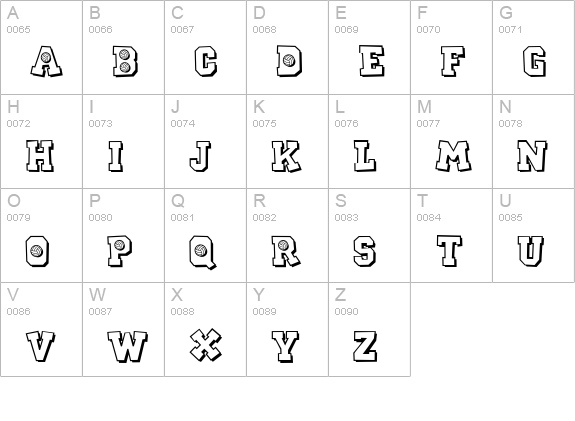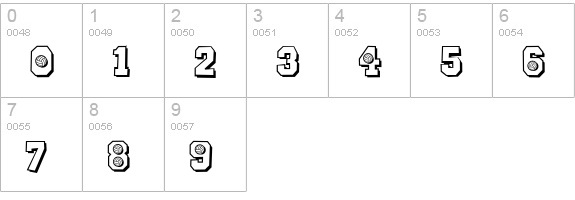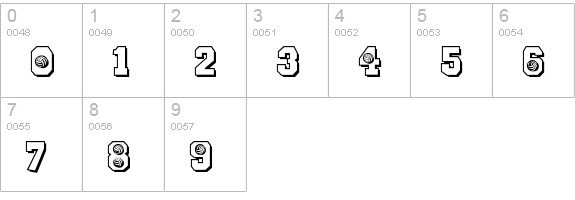
CK Sports Volleyball Font Details
Introducing CK Sports Volleyball font, a dynamic and energetic typeface designed specifically for all your volleyball-themed projects. With its bold and athletic appearance, this font perfectly captures the spirit and excitement of the game. The CK Sports Volleyball font features strong, angular letterforms that convey power and movement, making it an ideal choice for sports logos, posters, apparel designs, and much more. What's even better is that CK Sports Volleyball font is available for free download at FontsMarket.com. Yes, you read that right - you can get your hands on this versatile and eye-catching font without spending a dime! So whether you're a volleyball enthusiast looking to add a touch of flair to your designs or a designer seeking a unique typeface for your next project, CK Sports Volleyball font is the perfect choice. Download it now and take your designs to the next level!